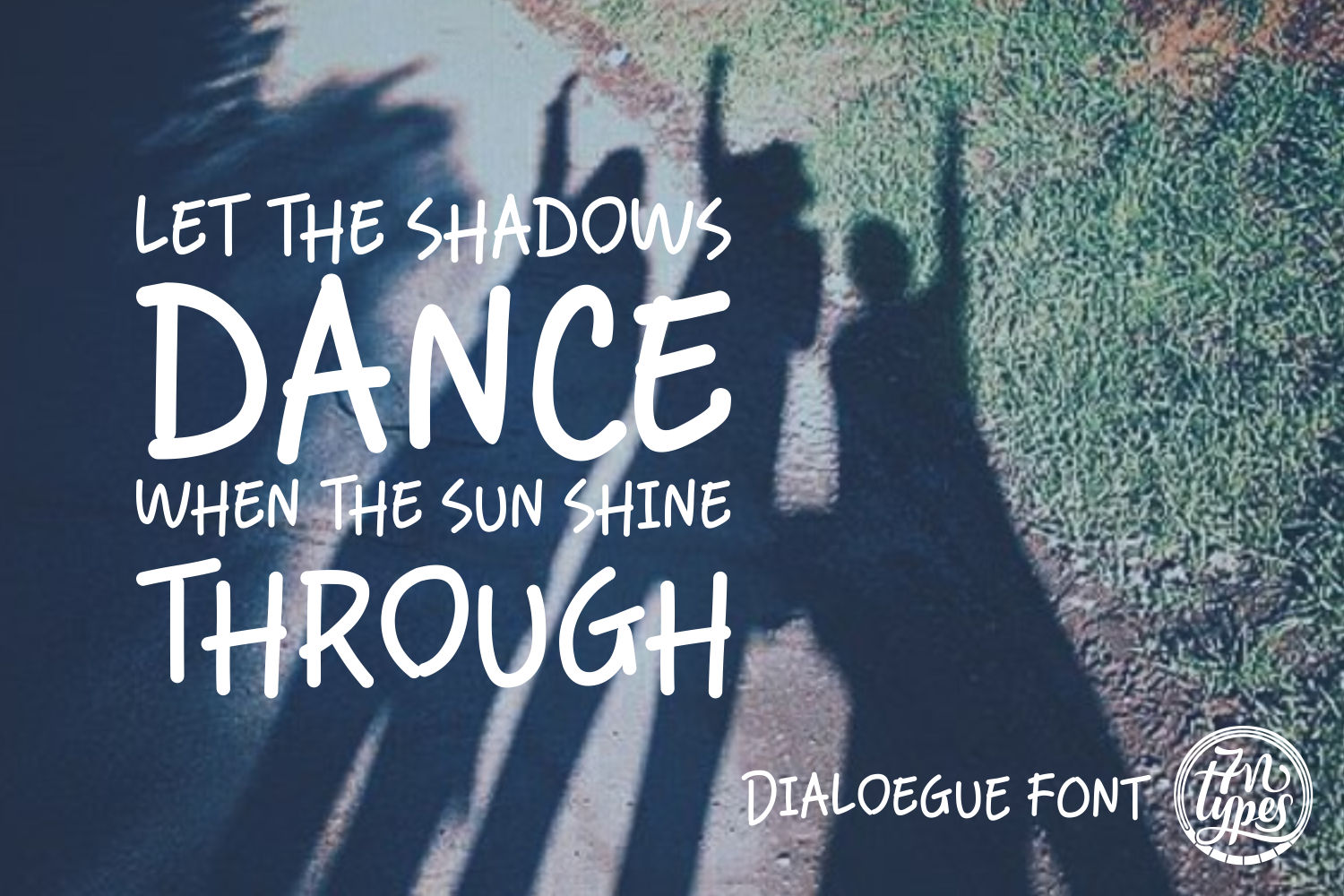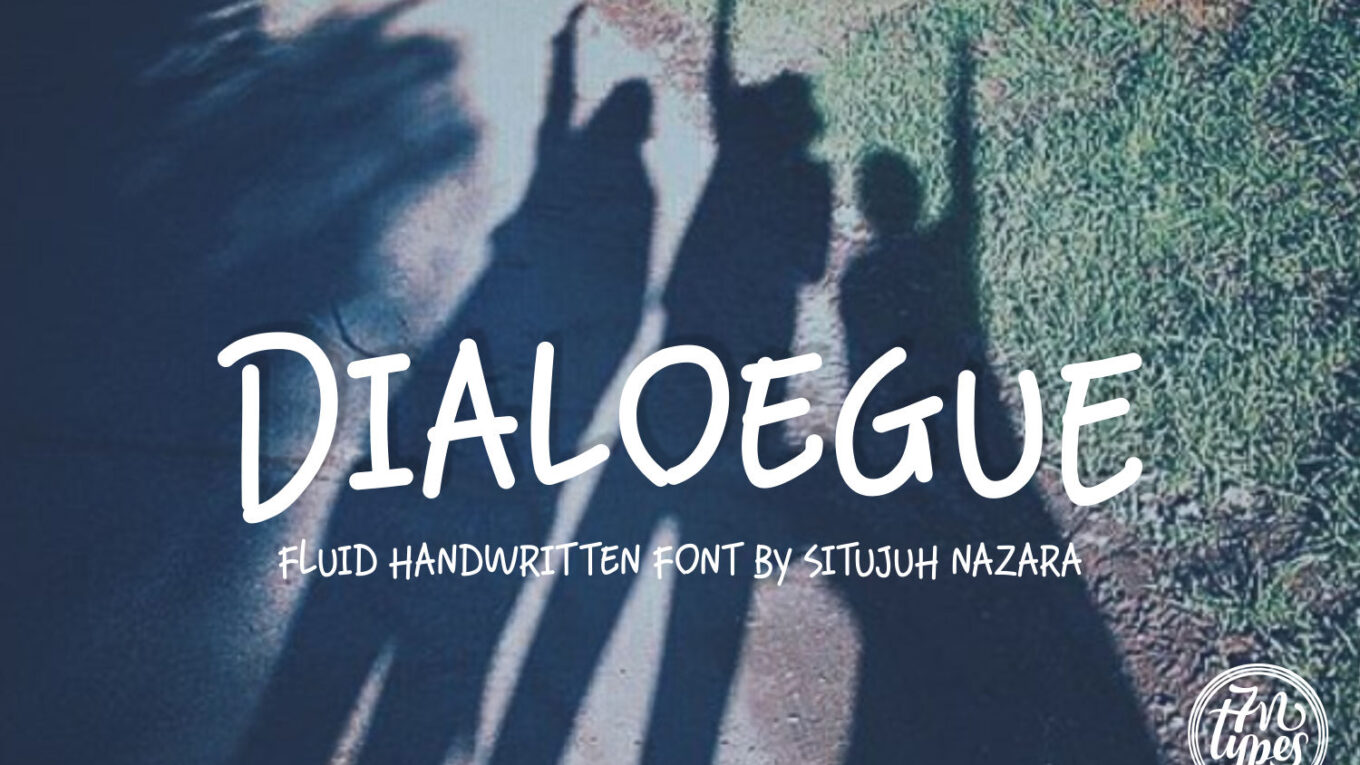
Introducing Dialoegue Font: A Fluid Handwritten Marvel
In the realm of typography, few fonts manage to capture the essence of playfulness and readability as effortlessly as Dialoegue. Created by the talented Situjuh Nazara, Dialoegue is a fluid handwritten font that has been making waves in the design community. Its unique blend of fluidity and boldness makes it an excellent choice for a wide range of projects, from print to digital media.
The Design Behind Dialoegue
Dialoegue boasts fluid, rounded letters that exude a sense of modernity and approachability. The font’s playful glyphs are not only easy to read but also remarkably versatile. Whether you’re working on a project that requires a bold statement or a subtle nuance, Dialoegue’s adaptability ensures it can handle various design demands with ease.
Key Features of Dialoegue Font
- Fluid Handwritten Style: Dialoegue’s fluidity gives it a dynamic, handwritten feel that sets it apart from more rigid typefaces.
- Playful Glyphs: The font’s glyphs are designed to be playful, adding a touch of whimsy to any project.
- High Readability: Despite its playful nature, Dialoegue remains highly readable, making it suitable for both body text and headlines.
- Bold and Versatile: The font’s boldness ensures it stands out, whether used in print on paper or vinyl, on apparel, or in digital formats.
Uses of Dialoegue Font
The versatility of Dialoegue makes it an invaluable asset for designers and crafters across various mediums:
- Print Media: Use Dialoegue for brochures, posters, and business cards to add a personal touch.
- Apparel: Its bold and playful nature makes it perfect for t-shirts, hoodies, and other apparel.
- Digital Media: Dialoegue shines in digital platforms, from website headers to social media graphics.
- Crafting Projects: Whether you’re creating handmade cards, DIY decorations, or craft blog posts, Dialoegue can add a unique flair.
Why Choose Dialoegue?
Choosing Dialoegue for your projects comes with several advantages:
- Uniqueness: Dialoegue offers a distinctive look that can set your project apart from the crowd.
- Versatility: Its adaptability across different mediums and design requirements makes it a practical choice.
- Legibility: The font’s readability ensures your message is conveyed clearly, regardless of the application.
- Aesthetic Appeal: Dialoegue’s fluid, rounded letters contribute to its aesthetic appeal, making any text visually engaging.
Dialoegue by Situjuh Nazara is more than just a font; it’s a design statement. Its fluid handwritten style, combined with its readability and versatility, makes it an excellent addition to any designer’s toolkit. Whether you’re working on a commercial project or a personal crafting endeavor, Dialoegue is sure to leave a lasting impression. Explore the possibilities with Dialoegue and discover how this stunning typeface can elevate your designs to new heights.